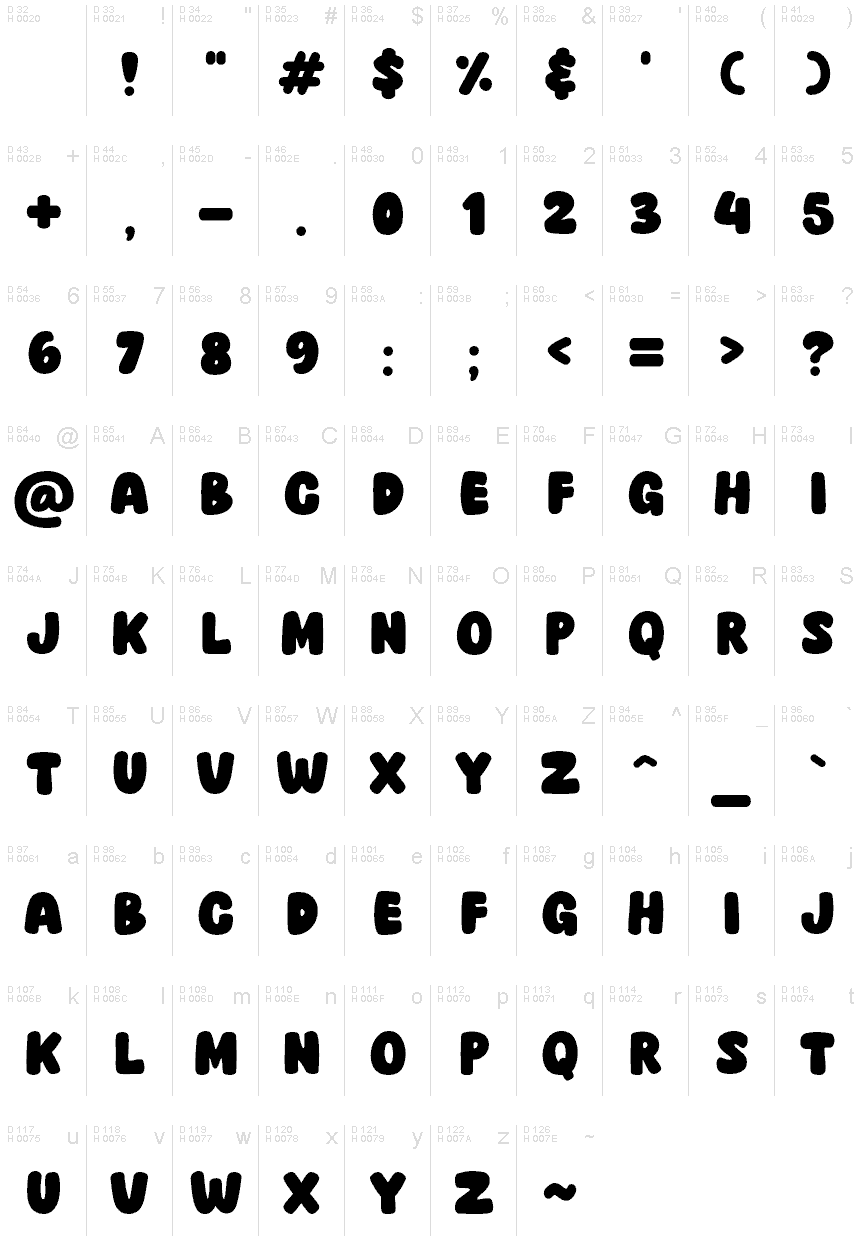
Sugar Bread
Sugar Bread font by MJType is a bold cartoon font with a distinct display style. Bringing back the retro influence, this casual font comes with rounded, bubbly, and smooth-textured characters. Its informal vibe and child-like design will give your written ideas an approachable and modest base from which to shine.
Use Sugar Bread freely in posters, game interfaces, album covers, product labels, catalog designs, packaging boxes or bags, party invitations for kids and adults alike etc. The typeface can be adopted in both personal and business tasks looking for a creative ways to stand out.